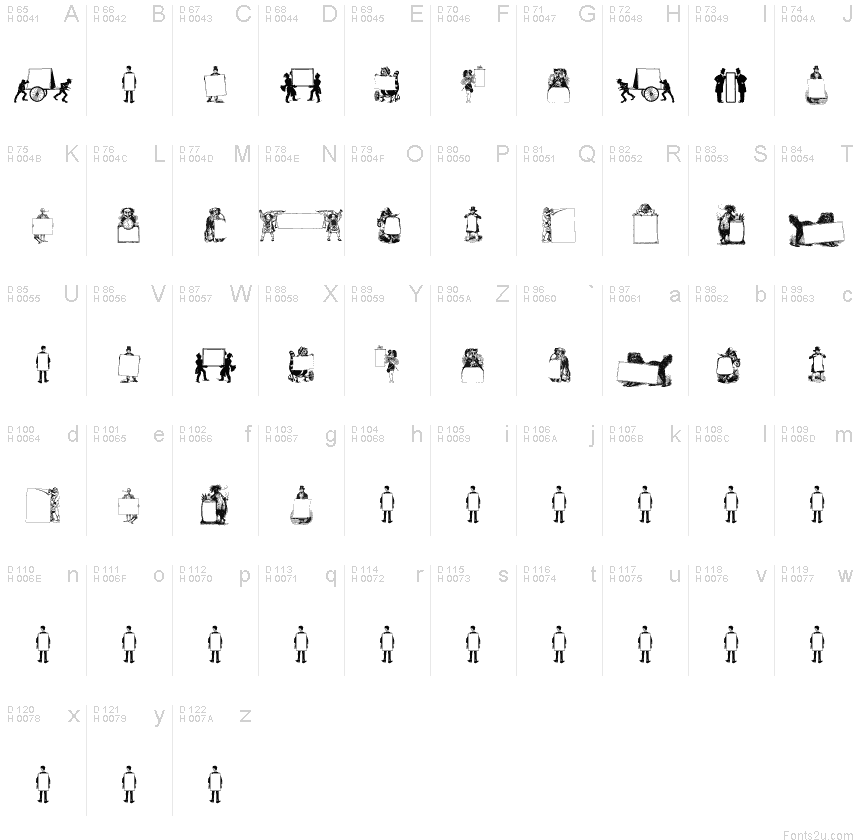
Picture Squares by Paulo W of Intellecta Design is a free pictorial dingbat font filled with people and animals presenting blank signs, carts, and placards. Its engraved, storybook-like drawings mix Victorian street characters with bears, cats, and other comic creatures, each framed around a broad writable panel.
Vintage newspaper illustration is the clearest reference, making these pictures useful for theatrical posters, novelty packaging, and children's publishing. Blank boards turn each character into a ready-made message carrier. It will especially suit designers and educators creating playful public announcements or classroom materials.